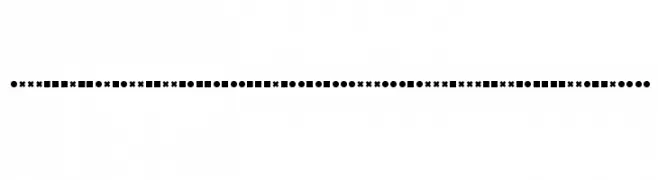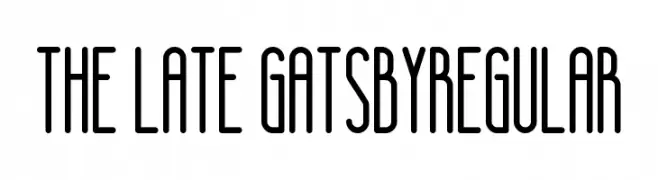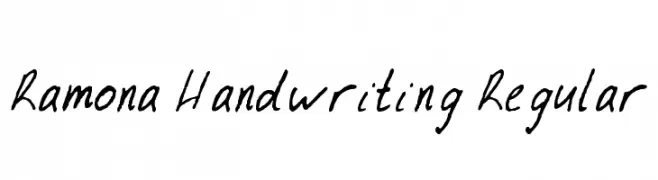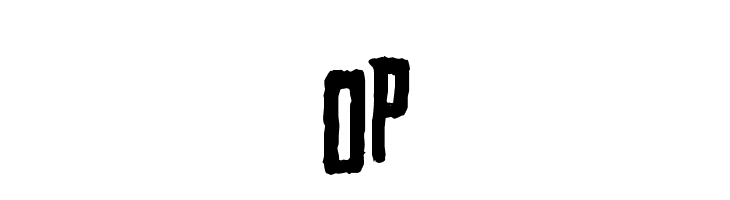
( RedFive - www.behance.net/james_atkins )
The image does not depict a valid font.
( RecklessRabbit )
Machine-readable barcode with vertical bars.
( Rebecca )
A bold, geometric font with decorative accents and a modern flair.
( Re-Type - www.re-type.com/ )
A bold, italic, and condensed font with a dynamic and energetic style.
( Raven 2 Studio - www.behance.net/raven2 )
A modern, geometric font with clean lines and uniform stroke width.
( RaulJrCompany - fonts.rauljr.co/ )
A tall, narrow, and modern font with clean lines and rounded edges.
( Random - ampheria.thecomicseries.com )
A bold, rounded font with a playful and modern style.
( RamonaMagdolna )
A casual, handwritten font with fluid, slightly uneven strokes.
( RamonaMagdolna )
A playful, casual handwritten font with irregular strokes and an organic flow.
( Rainkarnichi - github.com/rainkarnichi )
A pixelated, QR code-inspired font with a modern, digital aesthetic.